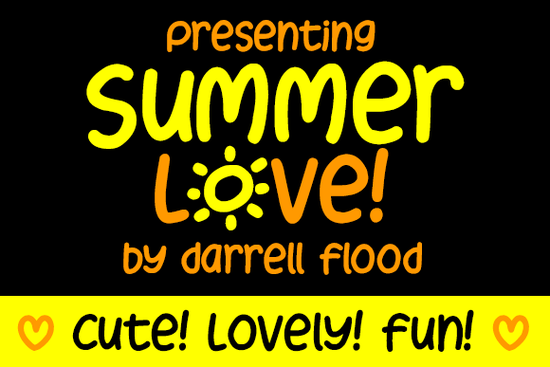
If you're looking for a relaxed, cheerful font that feels like summer scribbled on a postcard, the Summer Love Font fits right in. It’s a hand-drawn, felt-tip marker style font loose, friendly, and full of personality. Designed by Darrell Flood, it’s not overly polished or formal, which makes it ideal for projects where warmth and approachability matter more than precision. Think greeting cards, social media graphics for small businesses, kids’ activity sheets, or print-on-demand mugs and tote bags with a light, sunny vibe.
When does Summer Love Font work best?
This font shines in casual, low-pressure contexts. It’s not meant for legal disclaimers or dense body text but it’s perfect for short phrases: “Hello Summer,” “Beach Day Vibes,” “You’re My Sunshine,” or even playful product labels for handmade soaps or lemonade stands. Because it’s a script font with natural flow and slight irregularity, it pairs well with clean sans-serif fonts for contrast like pairing a handwritten headline with a crisp, modern subtitle.
It’s especially useful if you’re building a seasonal collection. Many crafters and POD sellers create themed bundles (e.g., “Summer Essentials” or “Back to School Fun”), and having a consistent, recognizable handwriting style helps tie designs together. Since Summer Love Font has a soft, rounded feel not sharp or angular it reads as gentle and inclusive, which resonates well with audiences who appreciate authenticity over perfection.
How does it compare to other friendly script fonts?
Like Big Daddy Font, Summer Love Font leans into expressive, hand-done energy but with less bounce and more relaxed rhythm. If you’ve used Staying Font, you’ll notice Summer Love feels lighter and airier, with fewer thick-to-thin transitions. For headings that need to stand out without shouting, Heading Font offers stronger weight and structure, while Summer Love is better suited for moments where charm matters more than authority.
It shares some of the sweetness of Alluna Font, but with less calligraphic formality and it’s noticeably more summery than Summer Cupcake Font, which leans into dessert-themed whimsy. If your project needs a subtle nod to seasonality without being literal (no palm trees or ice cream cones required), Summer Love Font delivers that quietly cheerful tone.
You’ll also get basic uppercase and lowercase letters, numerals, and common punctuation. No extended language support (like accented characters for Spanish or French), so it’s best for English-first projects or those where stylistic consistency outweighs multilingual needs.
Who’s using it and how?
We’ve seen small business owners use Summer Love Font for farmers’ market signage, café chalkboard menus, and Instagram story highlights. Crafters layer it over watercolor backgrounds for printable wall art or digital planners. Print-on-demand sellers apply it to beach towel mockups and kids’ apparel designs especially when the audience is parents looking for lighthearted, non-clip-art alternatives.
One designer shared how she combined it with simple line art icons (sun, flip-flops, seashells) to build a cohesive set of summer-themed SVG cut files then sold them as a bundle on Creative Market. Another used it across three Etsy listings for matching birthday party kits: invitations, cupcake toppers, and thank-you tags all feeling like part of the same joyful moment.
For reference, you can see how others have styled it by searching for Summer Love Font on Creative Fabrica.
A few practical tips before you start designing
- Size matters: Use it at 36pt or larger for best legibility smaller sizes lose some of its hand-drawn charm.
- Pair wisely: Try it with Inter, Montserrat, or Quicksand for clean, readable contrast.
- Test spacing: Kerning isn’t auto-adjusted, so manually nudge letters if “AV” or “To” look too tight.
- Keep it short: Stick to headlines, quotes, or single-line phrases not paragraphs.
If you already have a summer-themed project in mind or even just a blank canvas and a feeling you want to capture Summer Love Font is a low-risk, high-charm choice. Download it, open your design tool, and try typing “Hello, sunshine.” See how it feels. If it makes you smile, you’ve found your match.